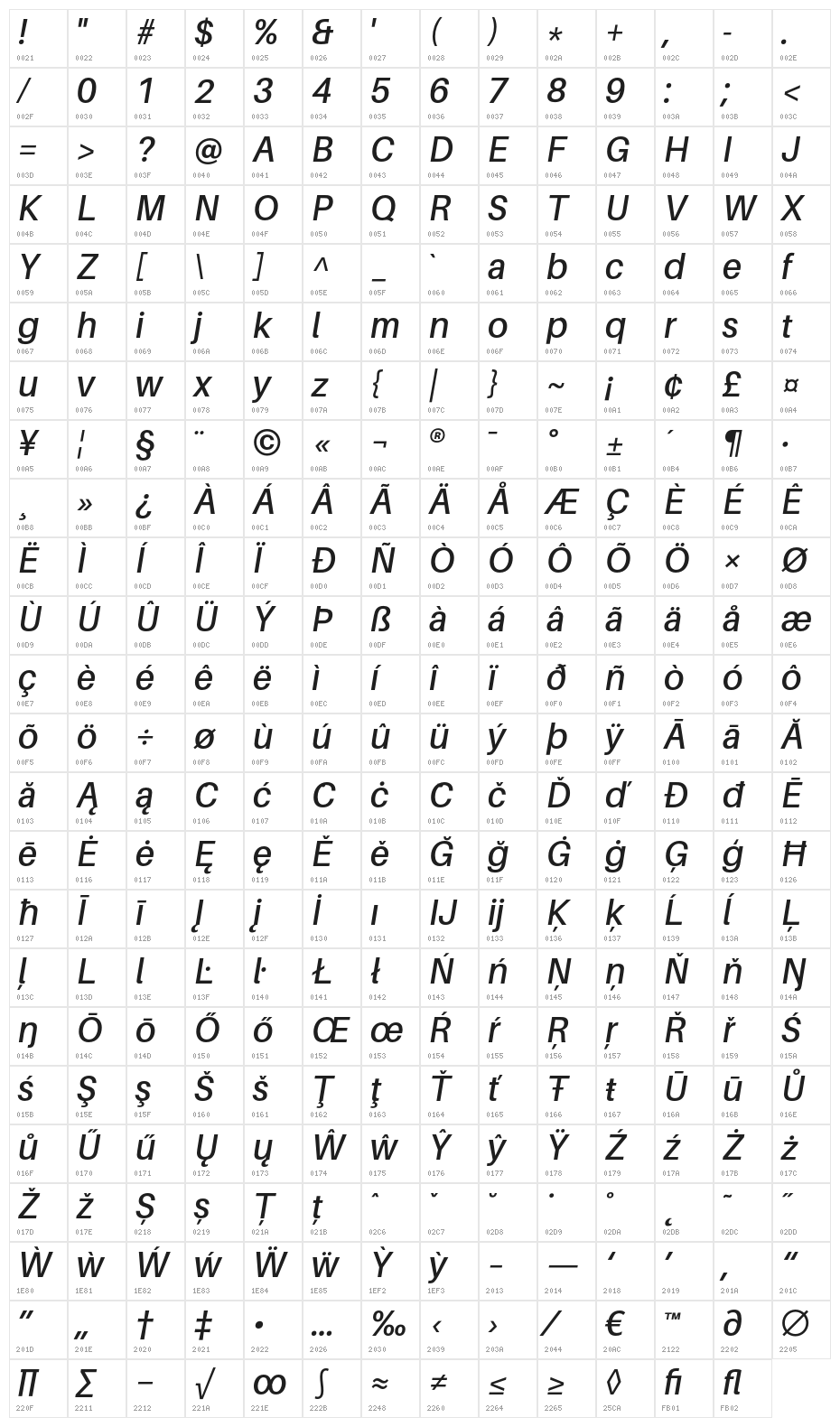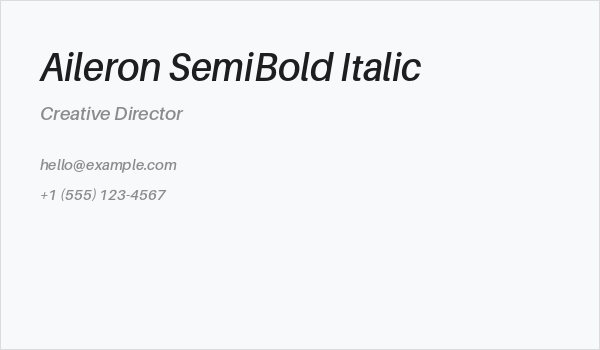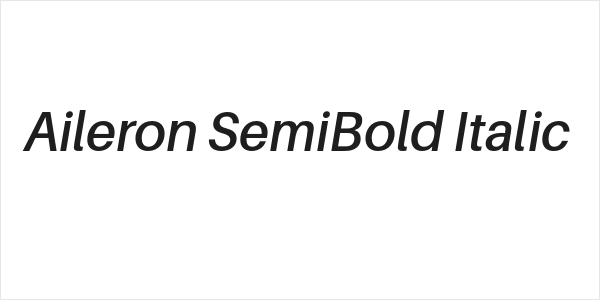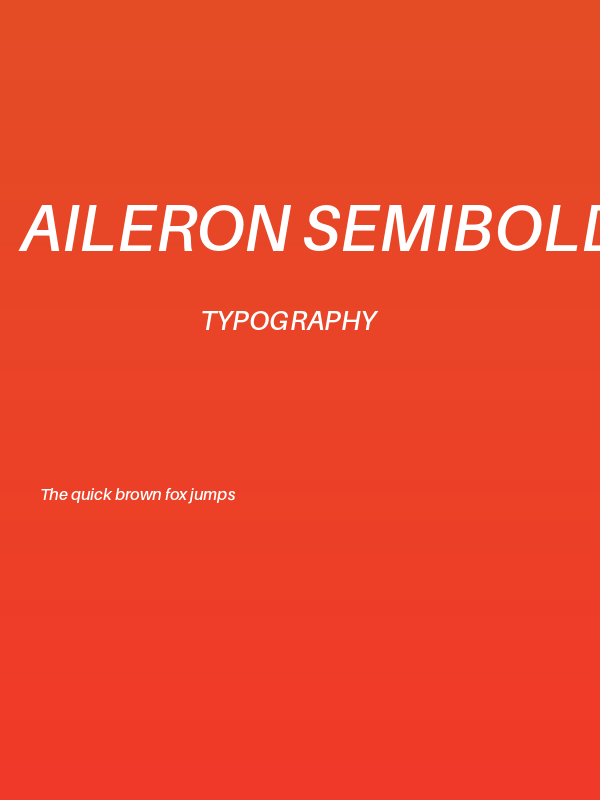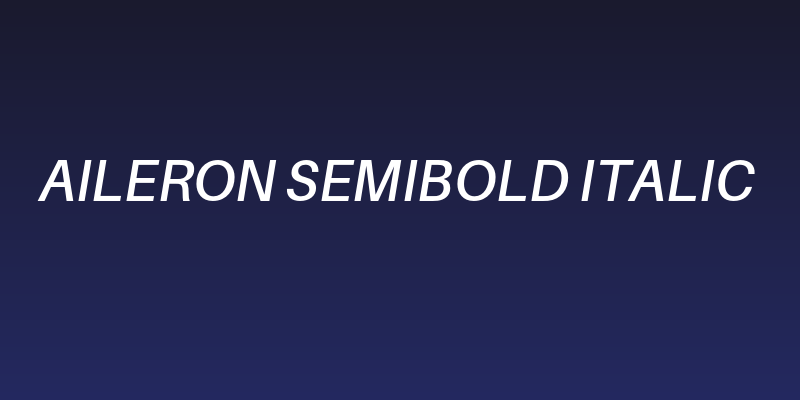
Aileron SemiBold Italic Font
Aileron SemiBold Italic Description
This font features a clean and modern sans-serif design with a slightly italicized style, providing a sense of movement and elegance. The characters are well-proportioned, offering a balanced and harmonious appearance. The semi-bold weight adds a touch of emphasis without overpowering the overall aesthetic. The font maintains a consistent stroke width, contributing to its readability and versatility. It includes a full set of uppercase and lowercase letters, numerals, and a variety of punctuation marks and special characters, making it suitable for a wide range of applications.